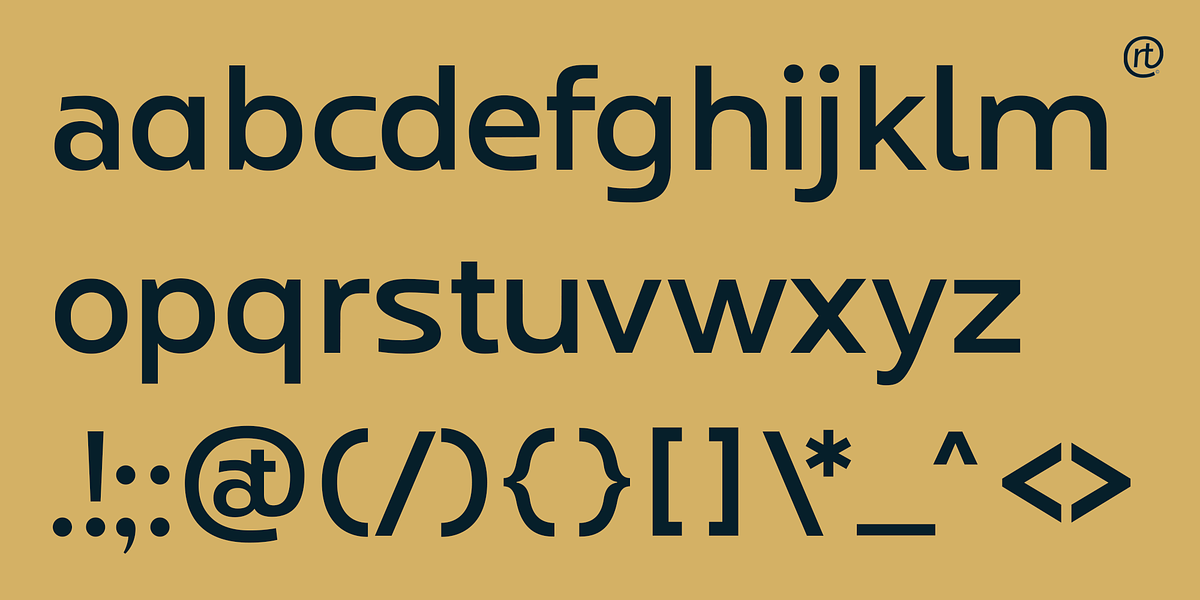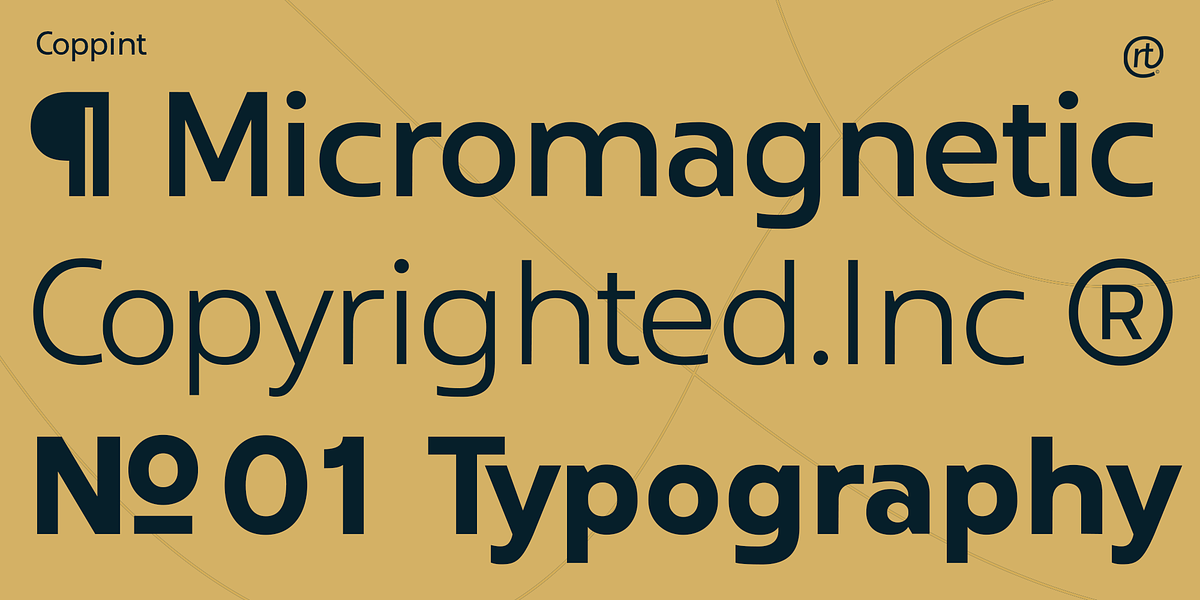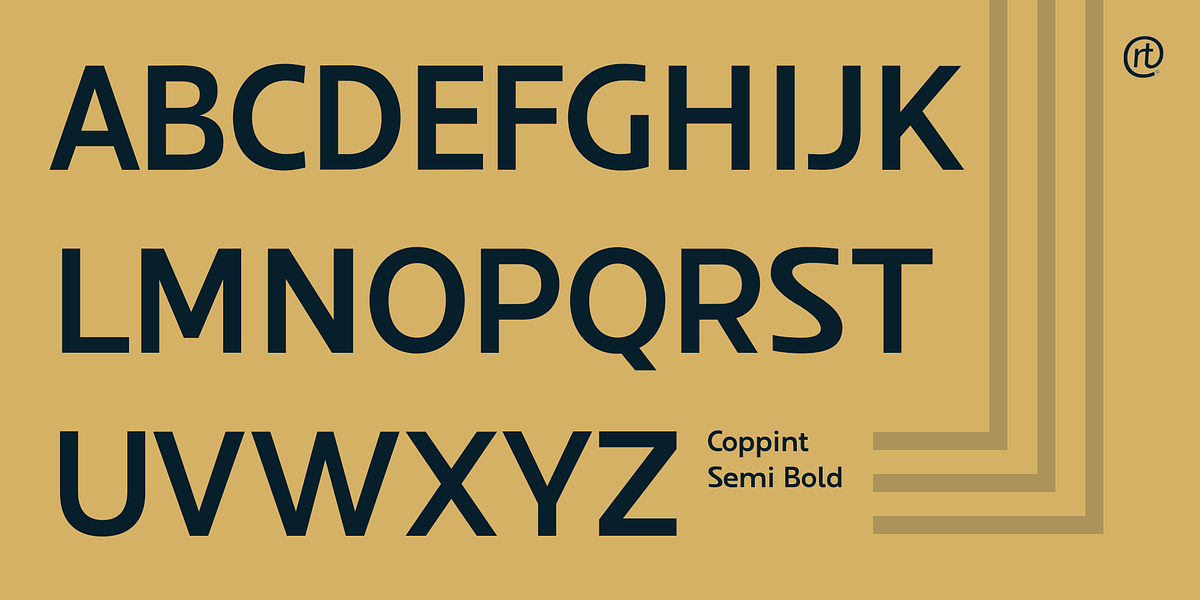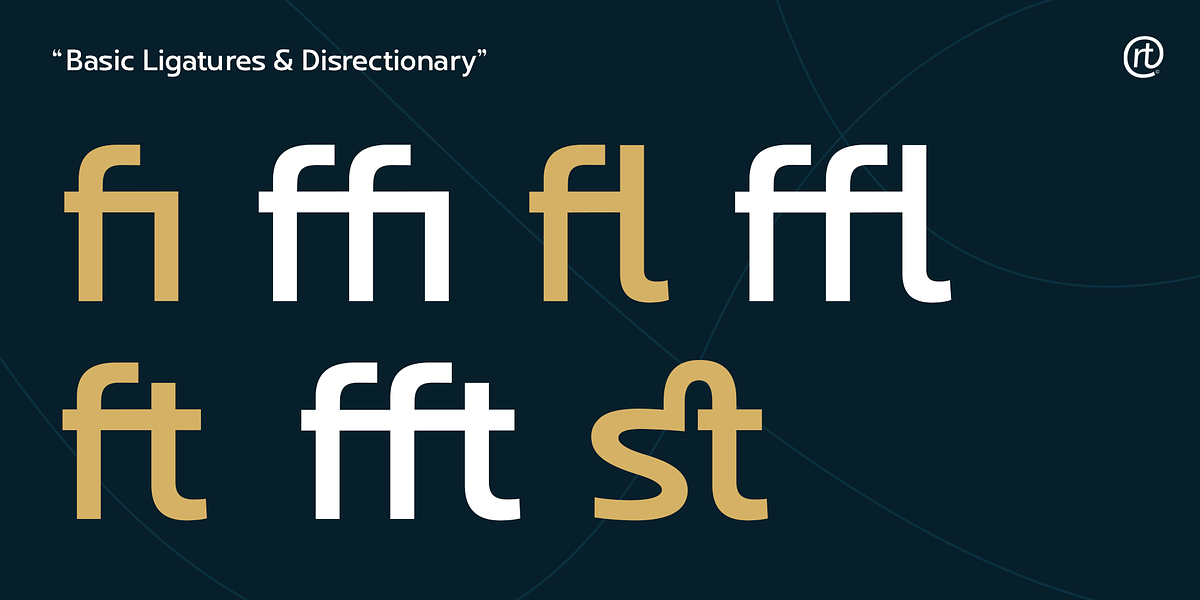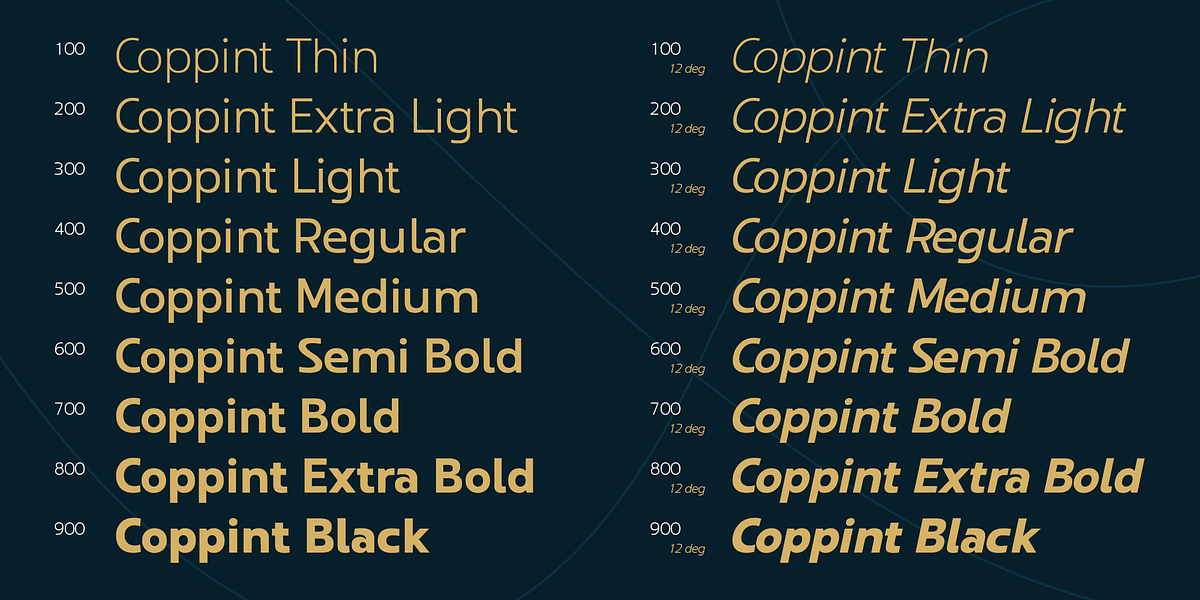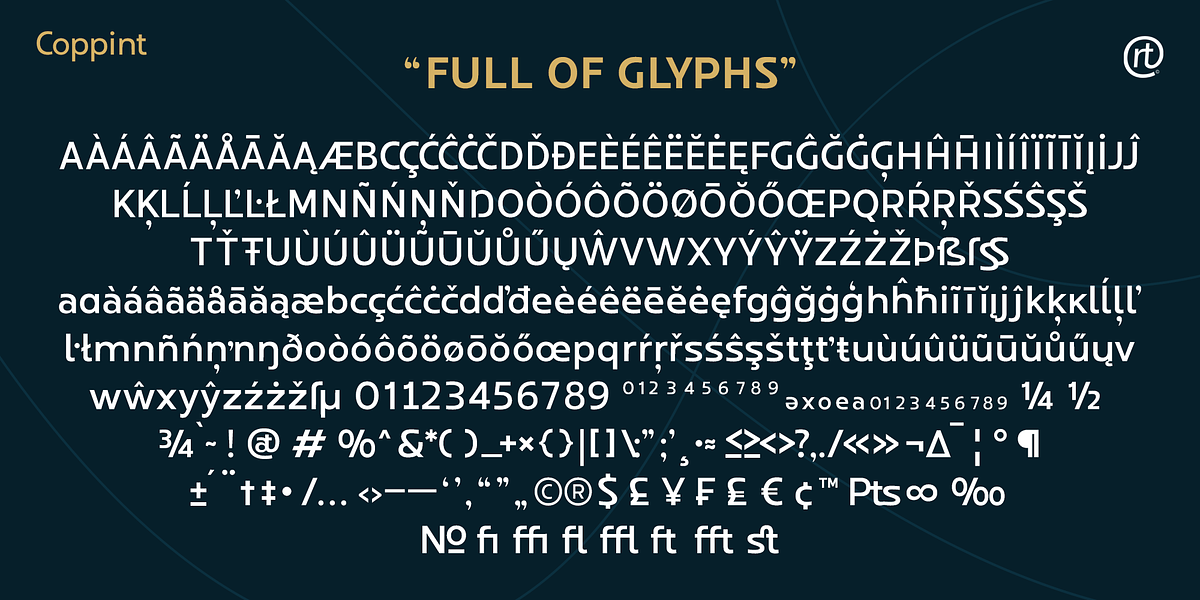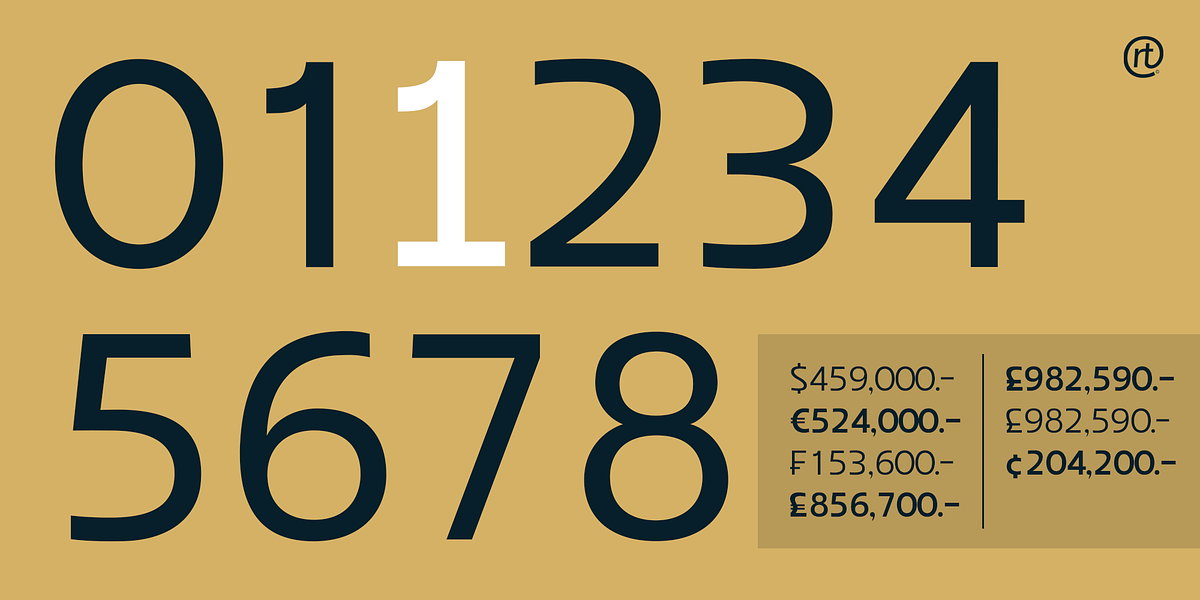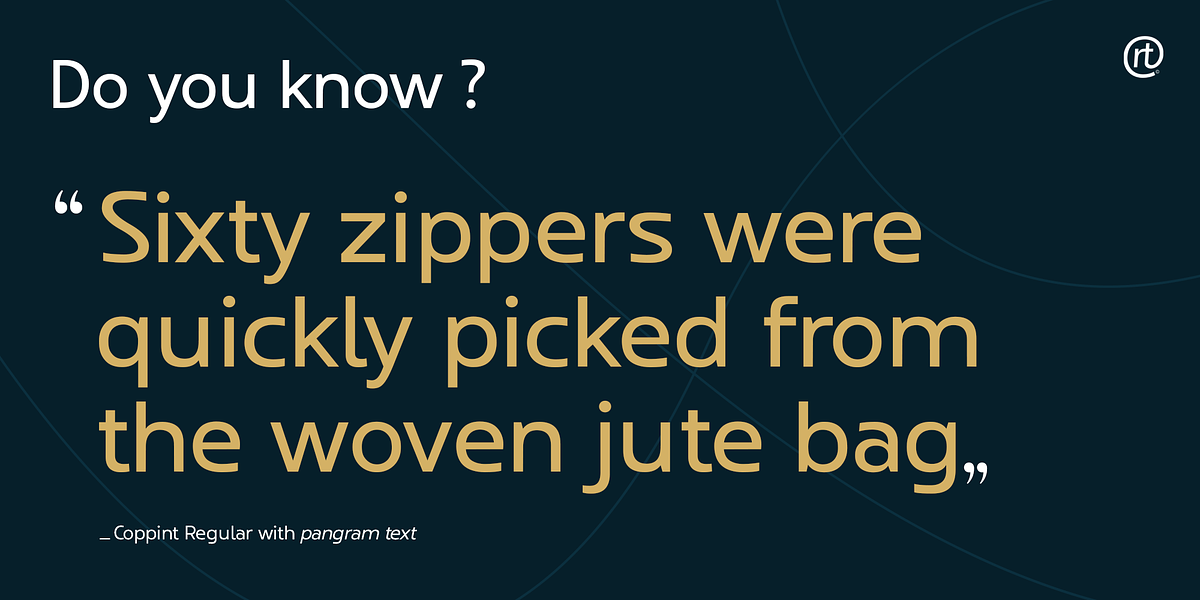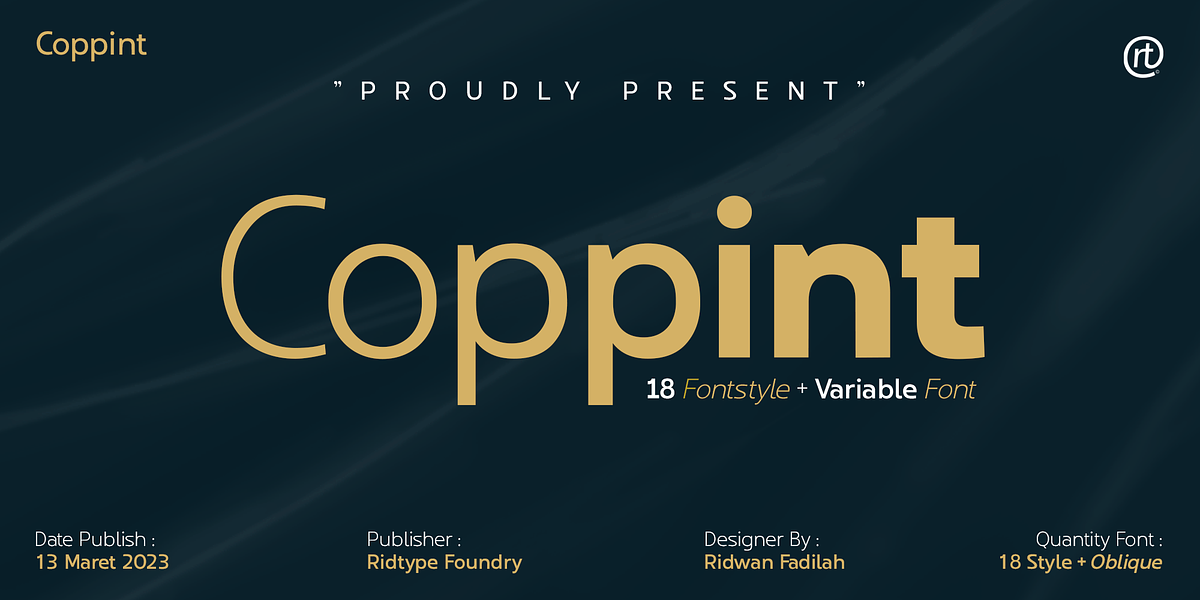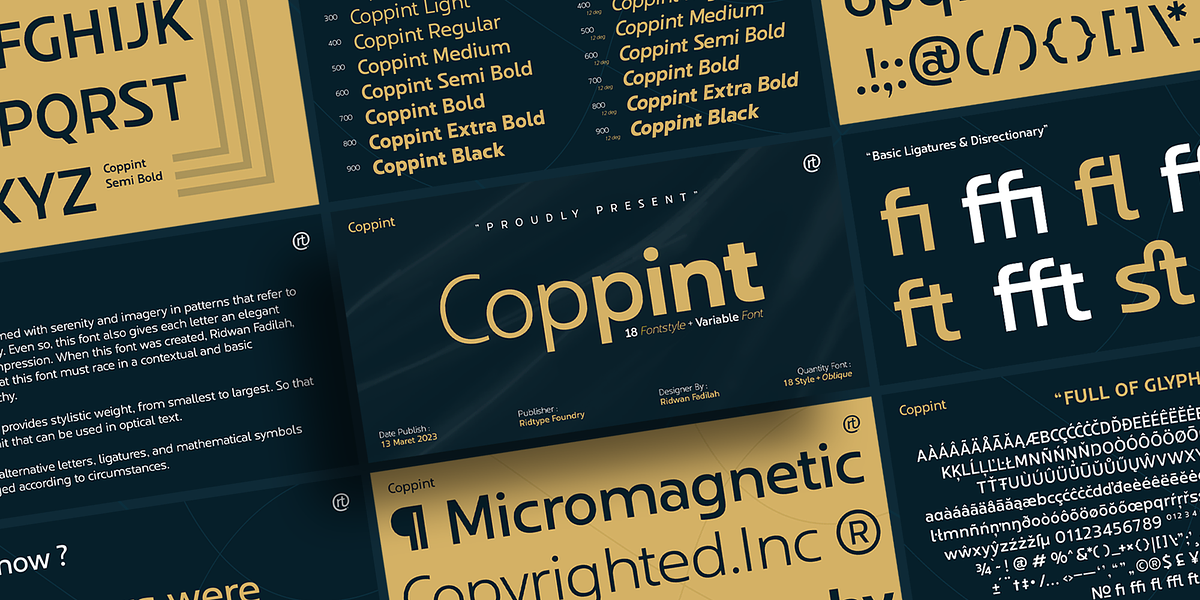
Coppint
Coppint is a geometric sans serif font designed by Ridwan Fadilah. It's characterized by its elegance and modern aesthetic. The font features stylistic weights allowing for variation in boldness, making it suitable for paragraph text. Coppint also includes alternative letters, ligatures, and mathematical symbols, providing versatility for different typographic needs.